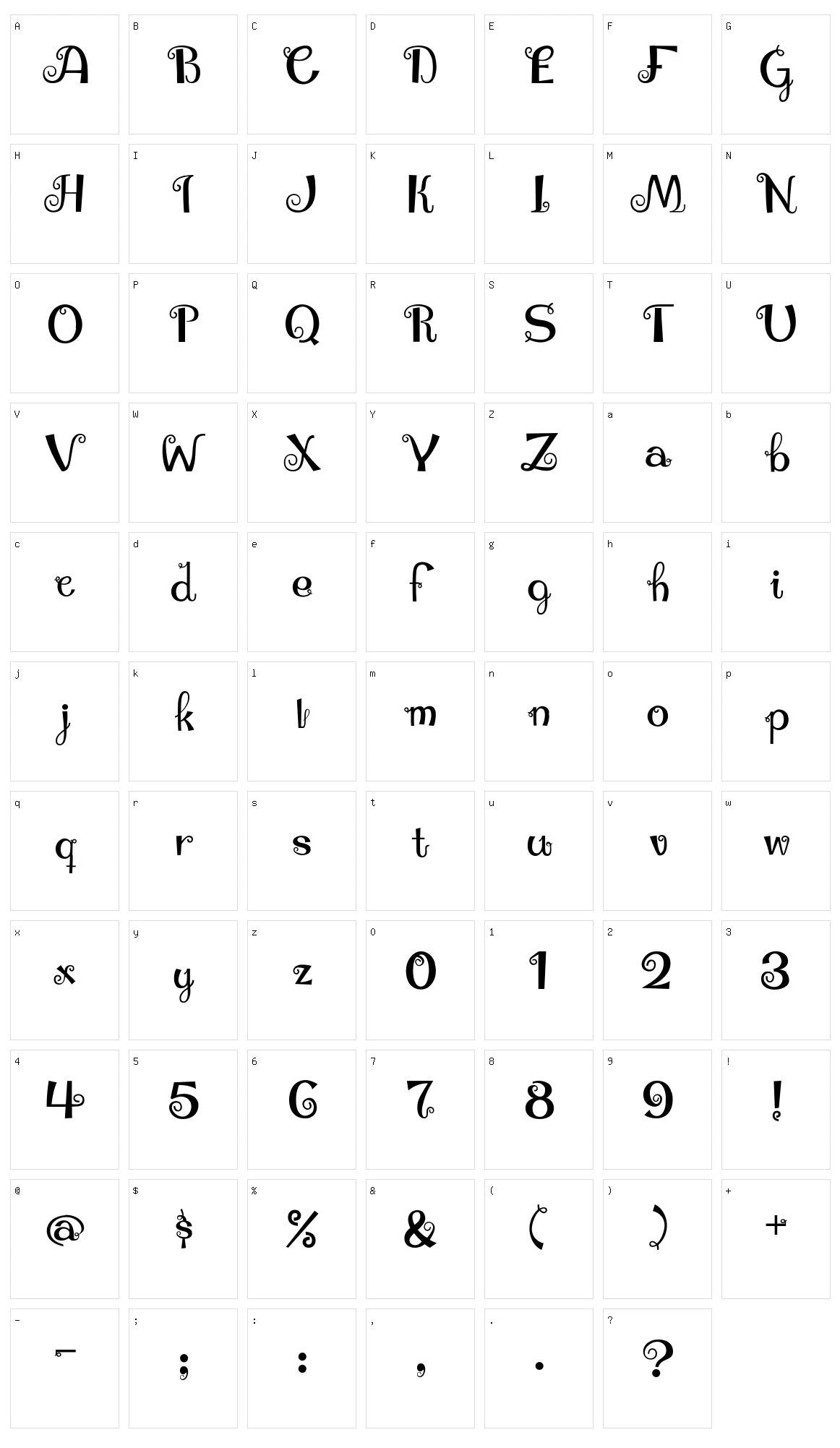
The free font Twiddle is carefully designed by Anastasija Fjodorova, showcasing a thoughtful balance of creativity and usability and falls under the Script font style. When you download the ZIP file, it contains only 27.75 KB of font files, making it lightweight and quick to download. Please review the license details below to understand permitted usage and distribution rights. If license information is not available, we recommend using this font for personal projects only or contacting the author directly for commercial usage permissions.